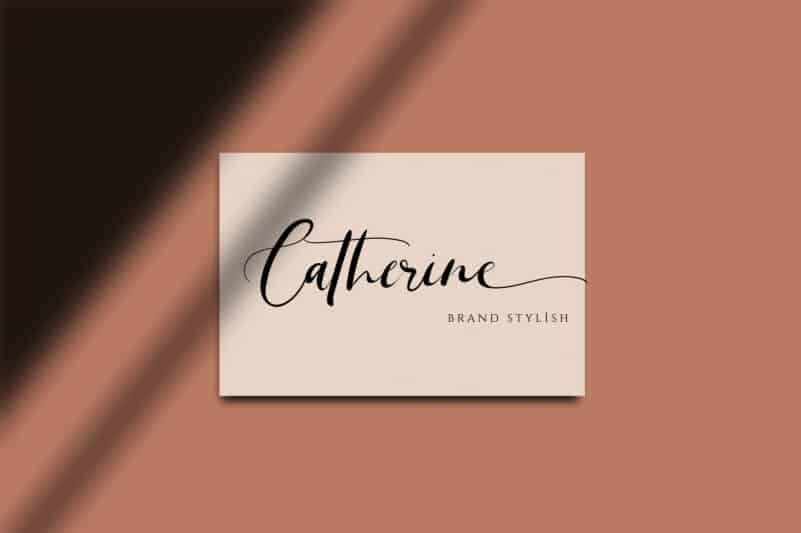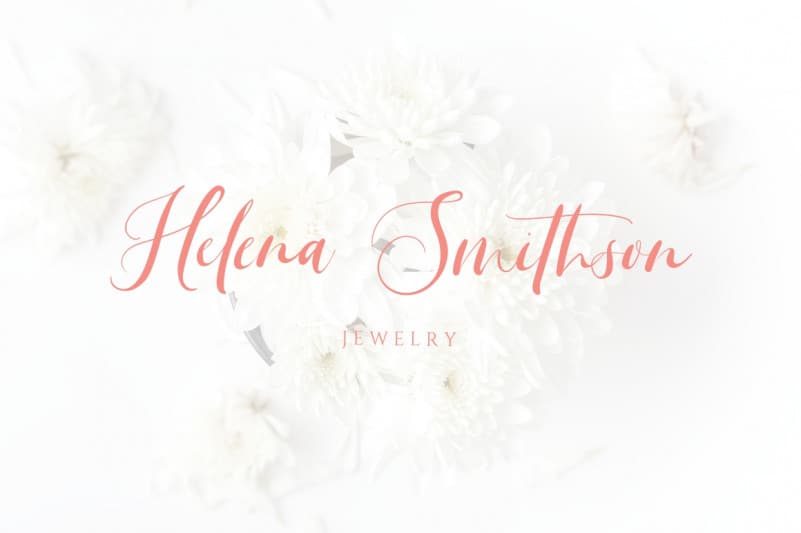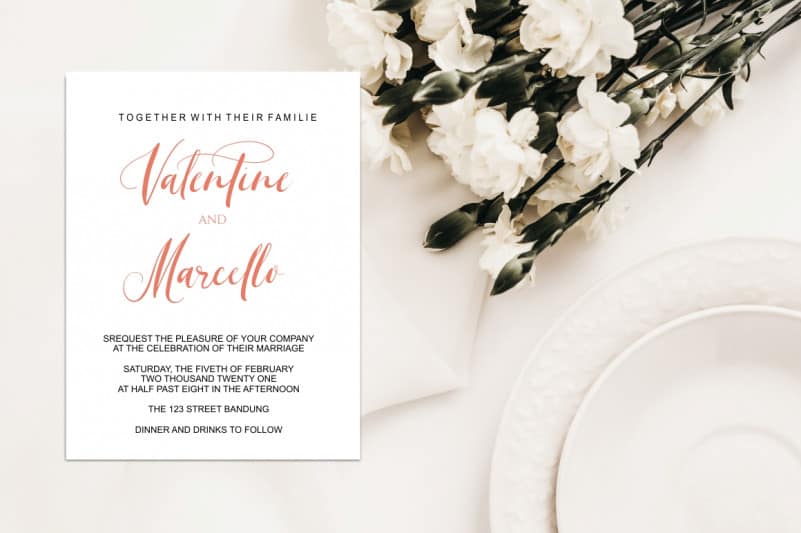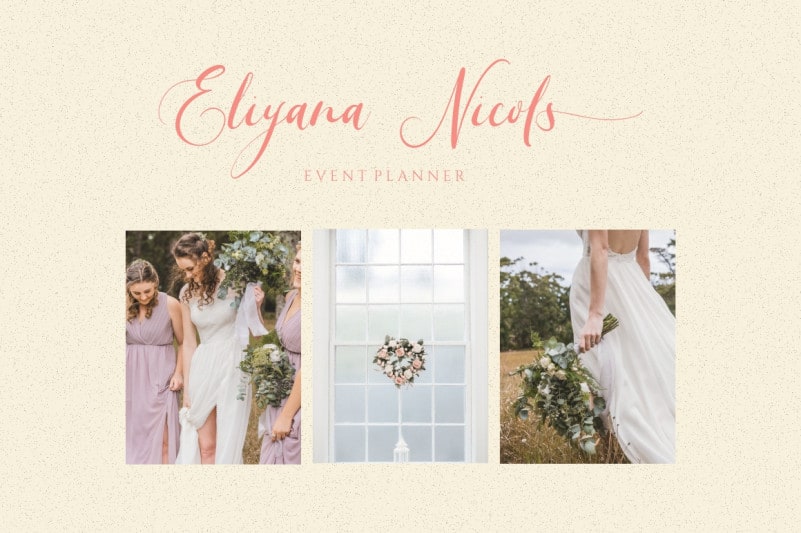
Beauty Sunshine Calligraphy Font is a beautiful light handwritten font with a unique feel and a stunning impact. It will add a luxury spark to any design project that you wish to create! This font is PUA encoded which means you can access all glyphs and swashes with ease!